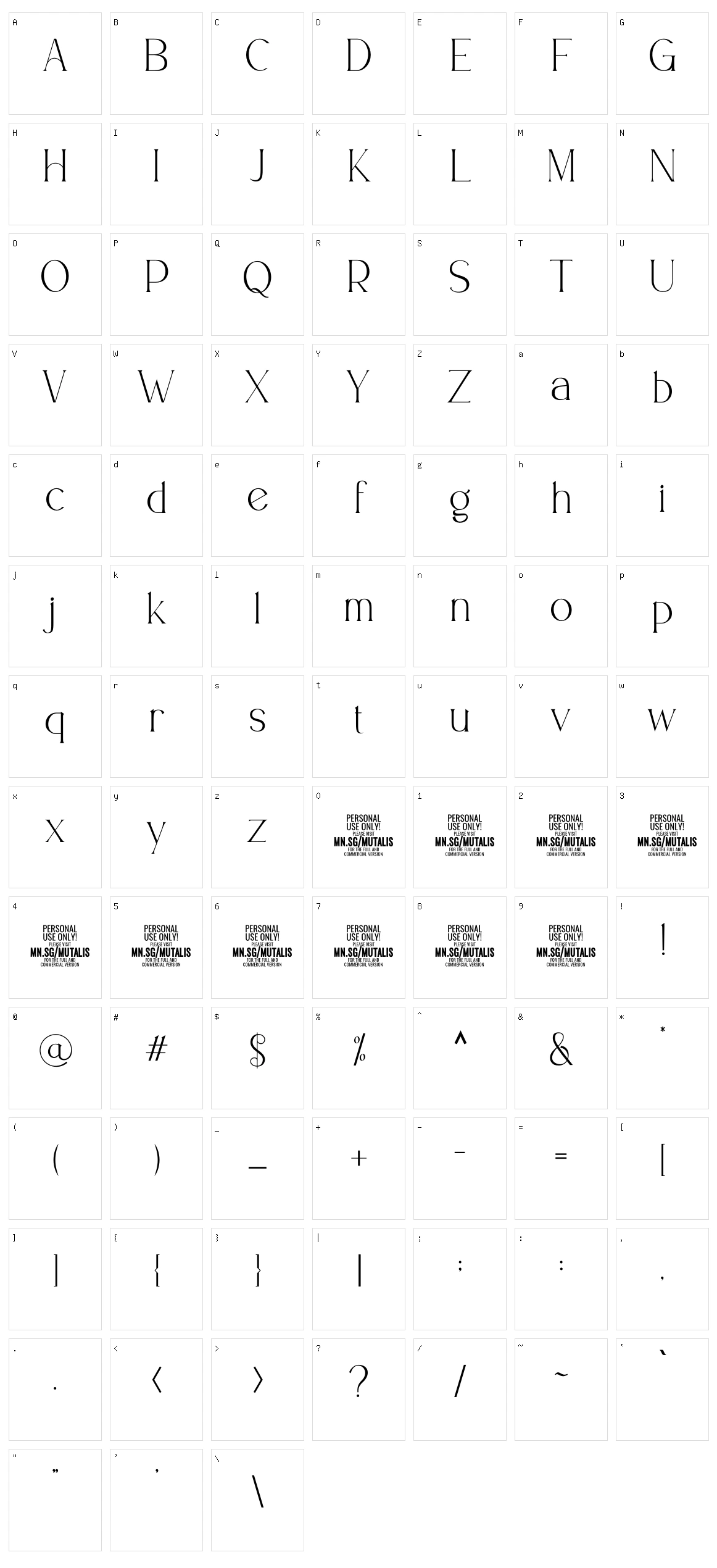
Mutalis Fashion is the epitome of contemporary elegance.
This font is the perfect blend of modernity and tradition, featuring a sleek design with delicate serifs that add a touch of sophistication.
This font is clean and versatile, making it the ideal choice for fashion-forward projects. With its innovative and inventive style, Mutalis Fashion is perfect for everything from high-end fashion campaigns to stylish websites and advertisements. Whether you're looking to add a touch of glamour to your designs or simply want to create a clean and sophisticated look, Mutalis Fashion is the perfect font for the job.
The Mutalis Fashion family consists of Regular and Italic.
The font is built with advanced OpenType functionality and has a guaranteed top-notch quality, containing stylistic and contextual alternates, ligatures and more features; all to give you full control and customizability.
It has extensive lingual support, covering all Latin-based languages, from Northern Europe to South Africa, from America to South-East Asia.
It contains all characters and symbols you'll ever need, including all punctuation and numbers.